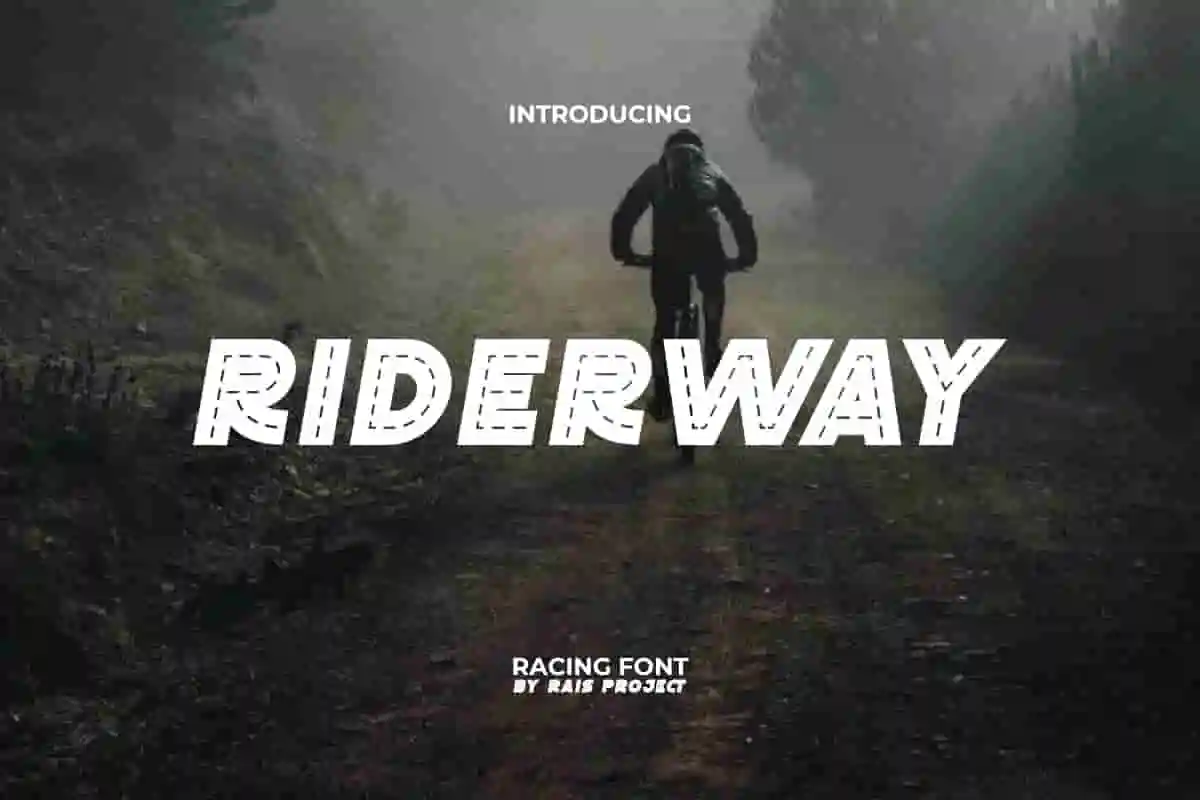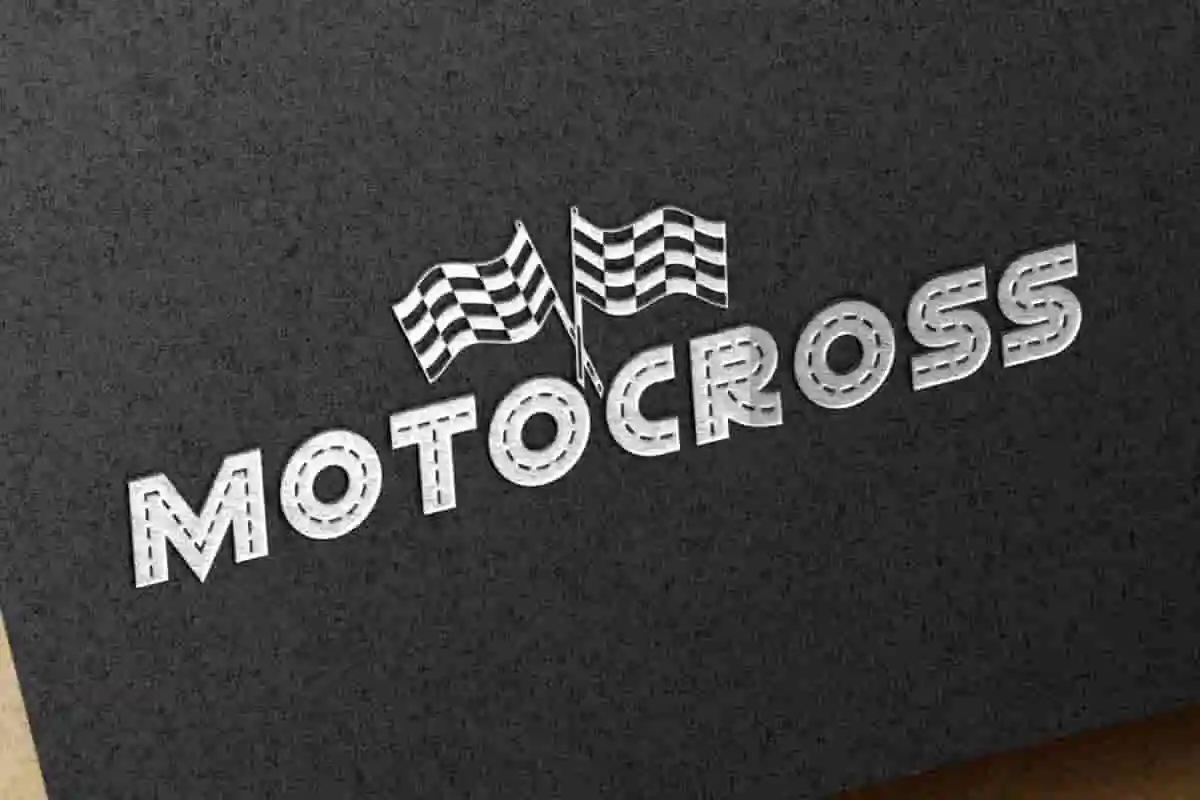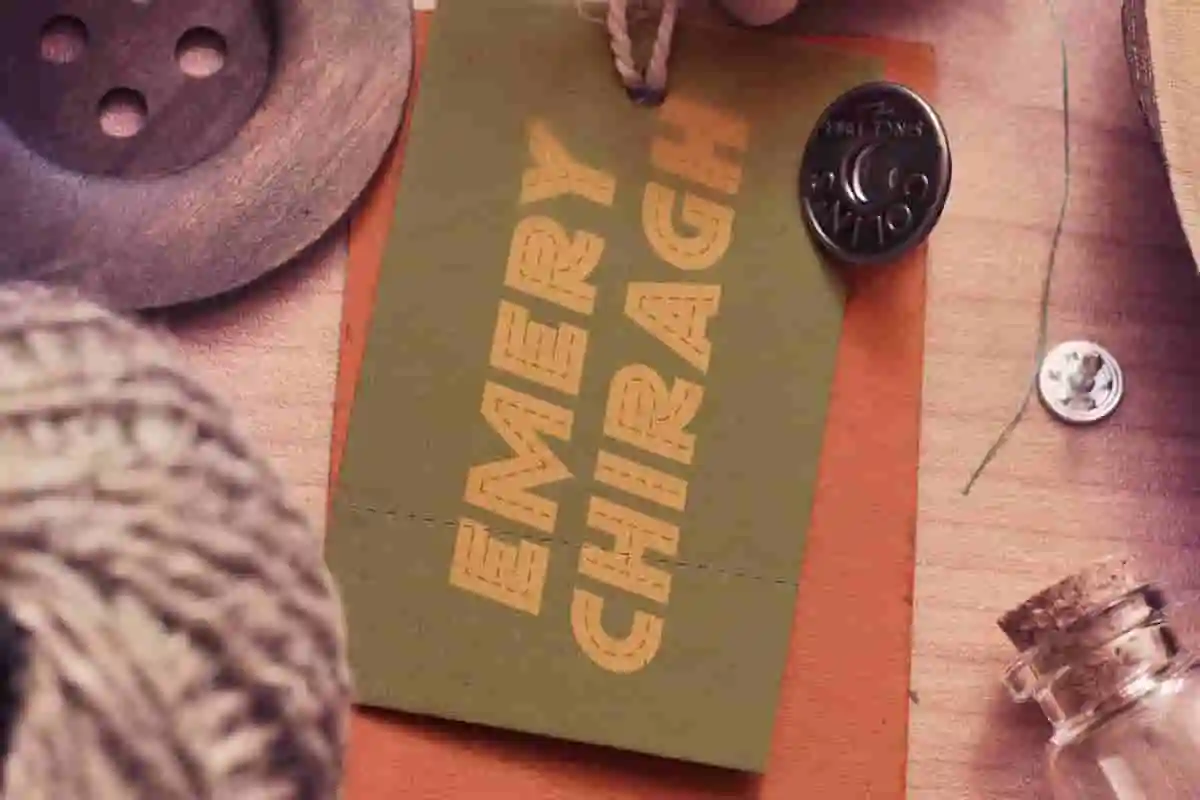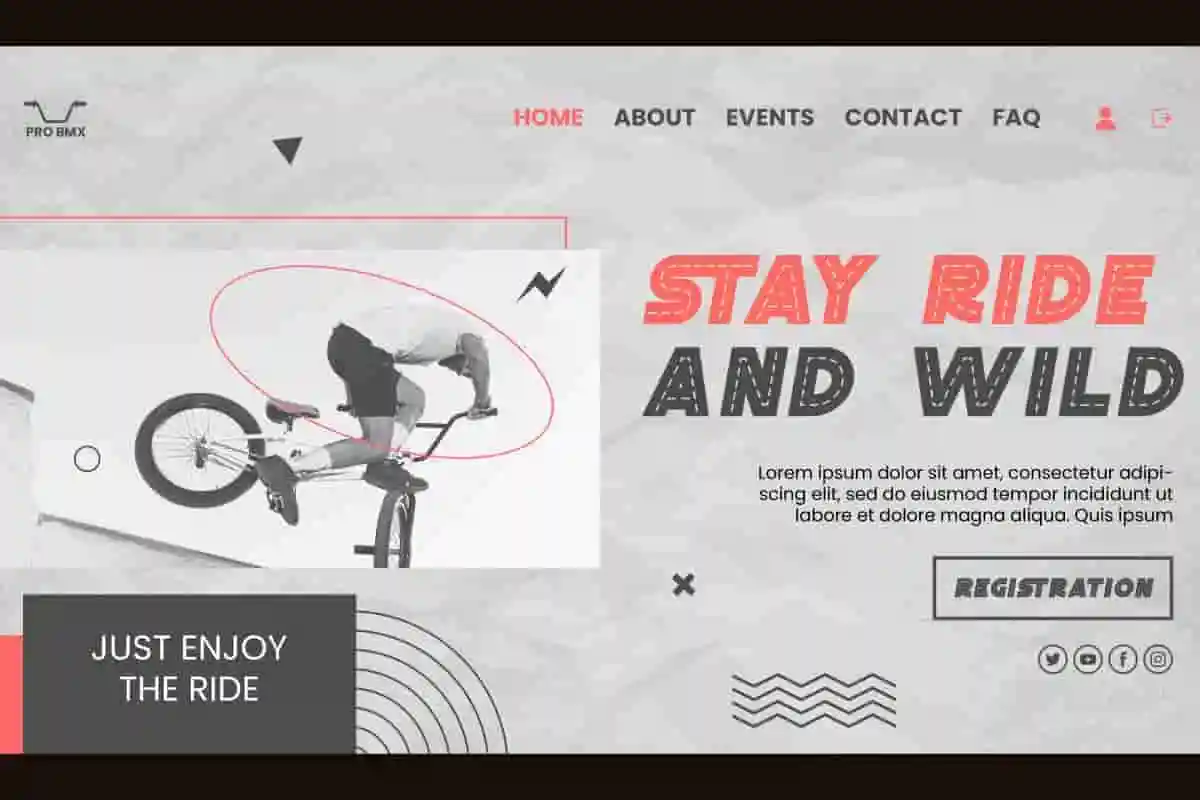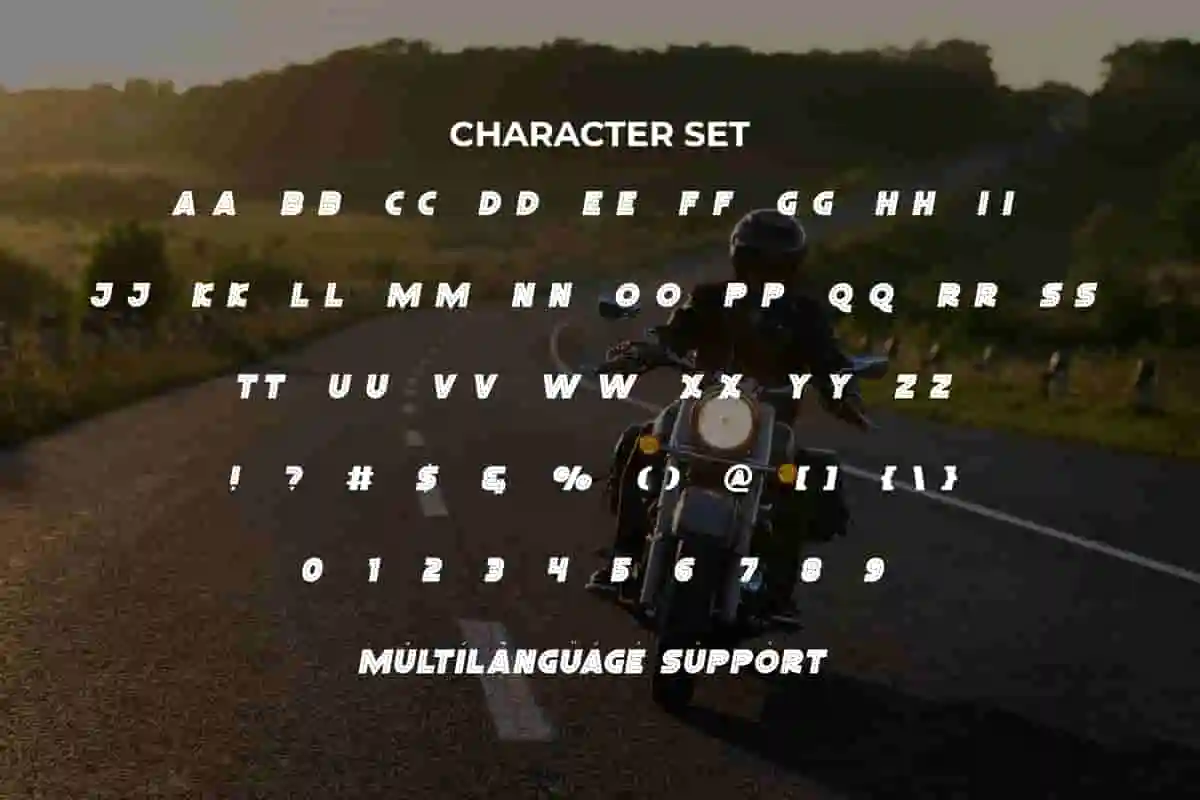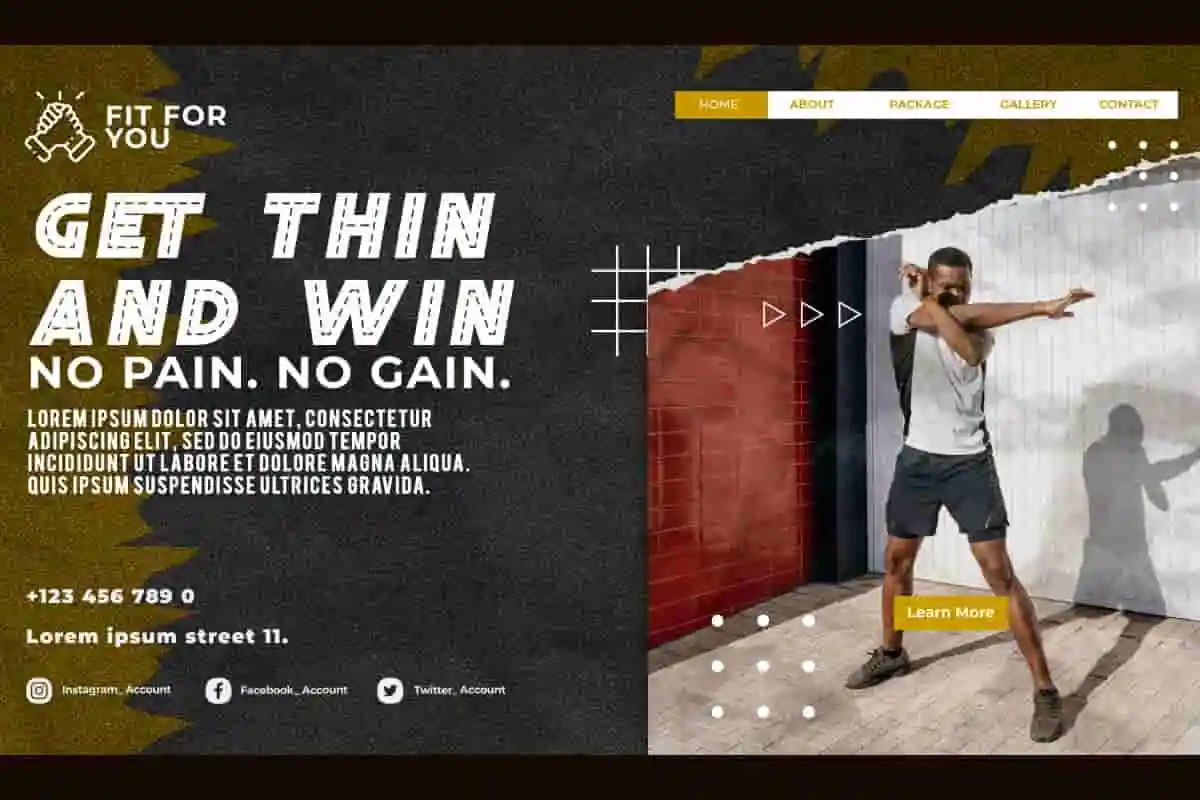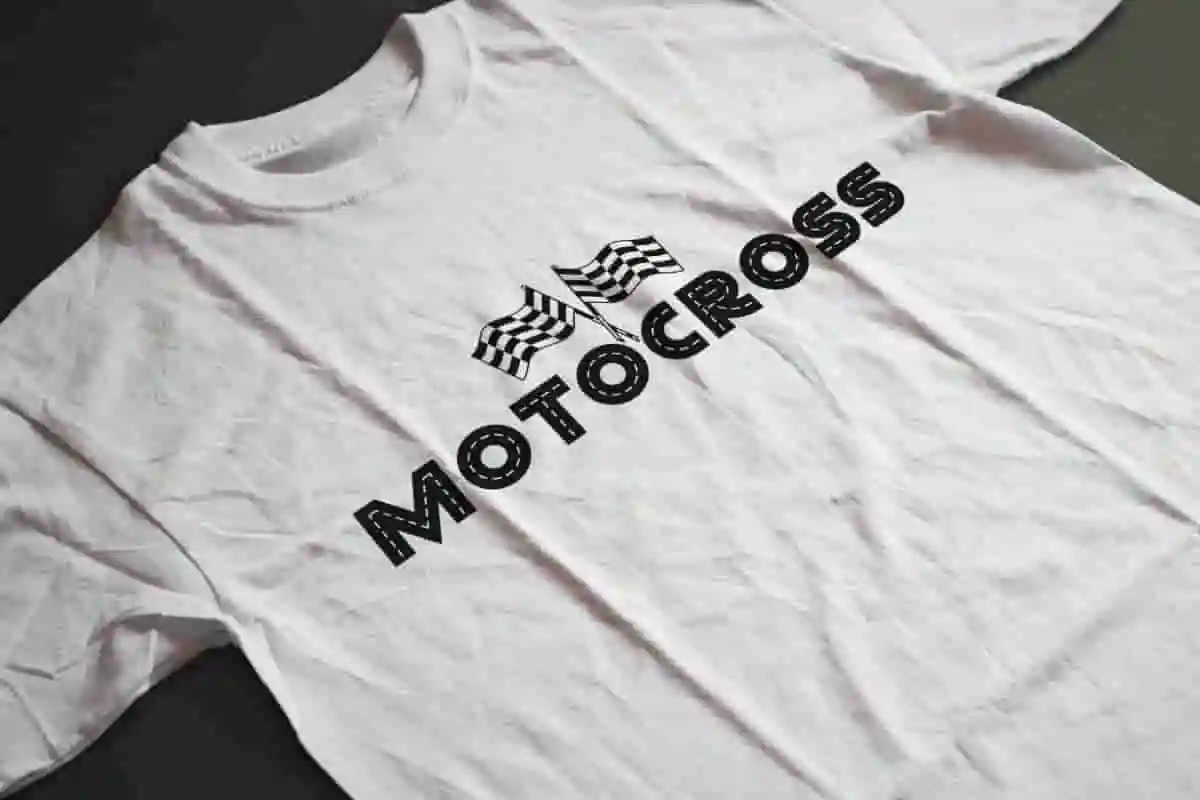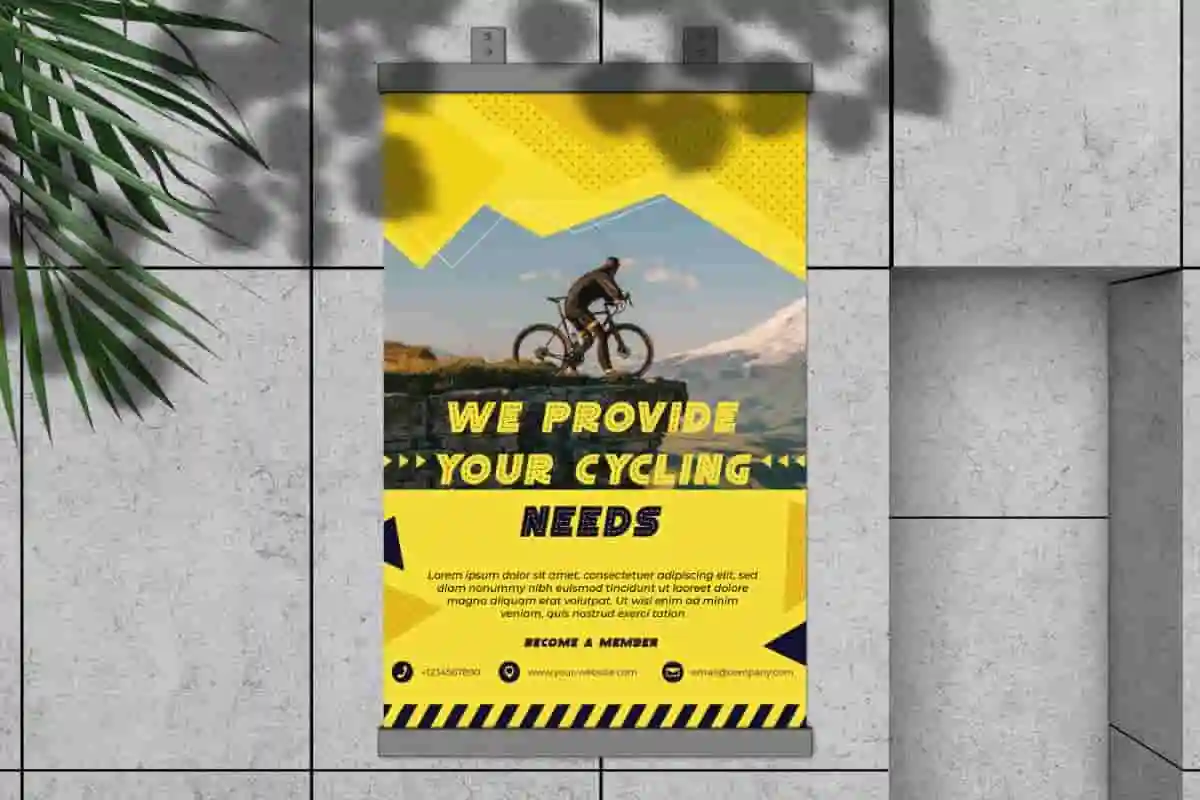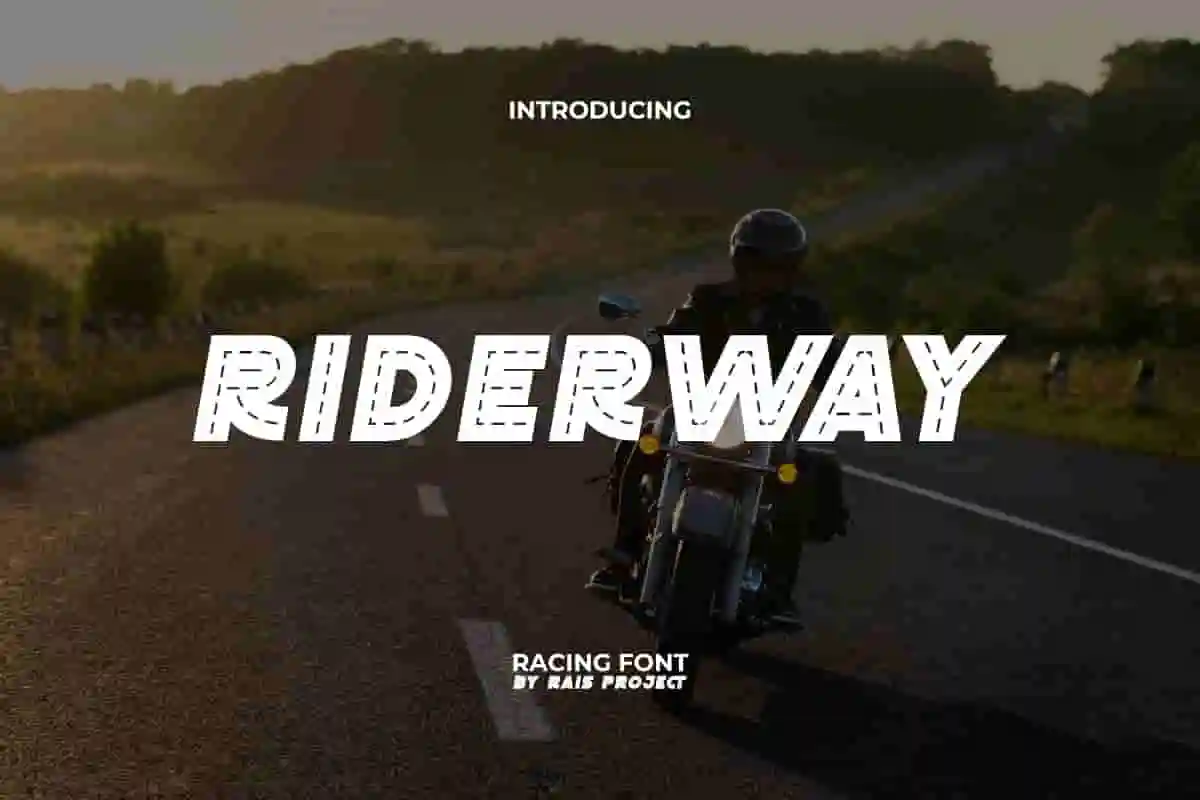
Riderway Display Font
Riderway Font is a playful creative gaming and racing font. Use this font right now to make your design looks unique!
Riderway Font is a playful creative gaming and racing font by RaisProject. This font has a dotted line inspired by the streets. It will be good for any designs, such as custom design, poster, product packaging, quotes, poster, signage, brand image, advertisement, invitation, label, marketing material, stationery, website page, and more!
Give your projects a striking visual edge with Riderway Display Font, a bold and stylish typeface that blends vintage charm with modern design. Its strong letterforms, sharp edges, and unique retro-inspired details make it the perfect choice for creatives who want to grab attention and stand out in every design.
Whether you’re working on logos, posters, branding, packaging, merchandise, advertising campaigns, headlines, or social media graphics, Riderway is built to make an impact. Its versatile style works beautifully across digital and print platforms, making it a must-have font for designers who crave versatility and originality.
Each character in Riderway Display Font is carefully designed to create a balance between creativity and readability. This ensures your designs not only look stylish but also communicate your message clearly. Its bold presence makes it ideal for projects that need to stand out in competitive markets, from apparel design to eye-catching product packaging.
Riderway Display Font includes a full set of ALL CAPS for Uppercase and Lowercase Letters, Numerals, and large range of Punctuation. This modern font will be suitable for various industries, such as automotive, sports, fashion, game, barber shop, cafe, event or festival, photography, printing, publishing, etc.